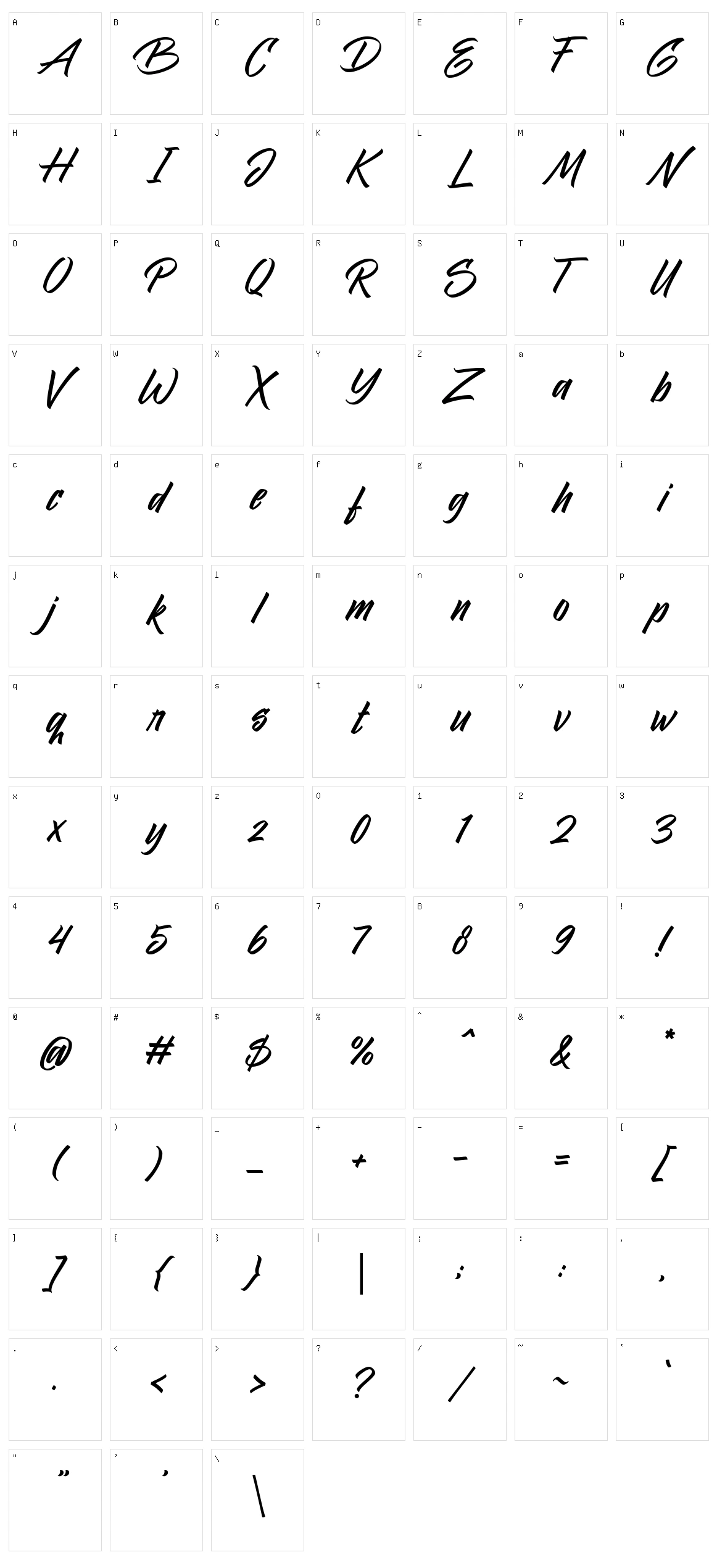
The free font Margo is carefully designed by Kong Font, showcasing a thoughtful balance of creativity and usability and falls under the Script font style. When you download the ZIP file, it contains only 172.92 KB of font files, making it lightweight and quick to download. Please review the license details below to understand permitted usage and distribution rights. If license information is not available, we recommend using this font for personal projects only or contacting the author directly for commercial usage permissions.